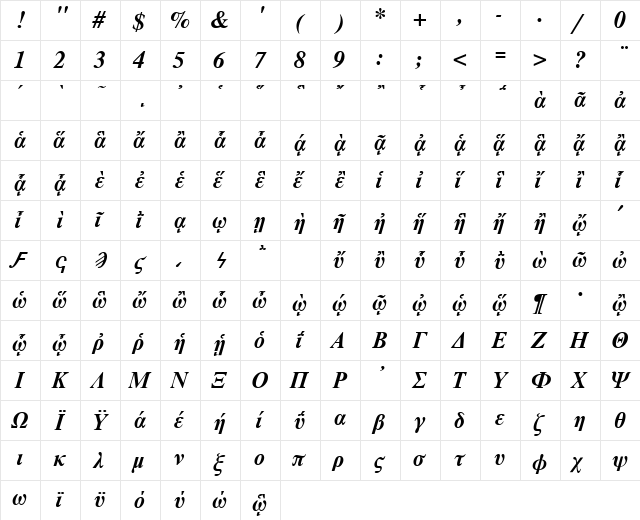
GreekTimesAncientSSK BoldItalic Font Preview
Design Context for GreekTimesAncientSSK Typeface
GreekTimesAncientSSK takes a measured approach to typography — its balanced proportions and neutral character make it a reliable workhorse for both digital and print work. Its italic angle brings a sense of urgency and motion to the letterforms. The heavy weight commands attention and anchors typographic hierarchies.
Pro Tip: Try GreekTimesAncientSSK for annotation and caption copy alongside an upright companion — the contrast in angle creates a dynamic but ordered typographic system.